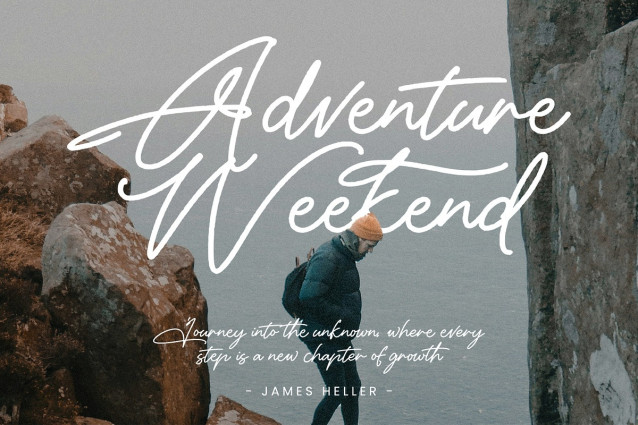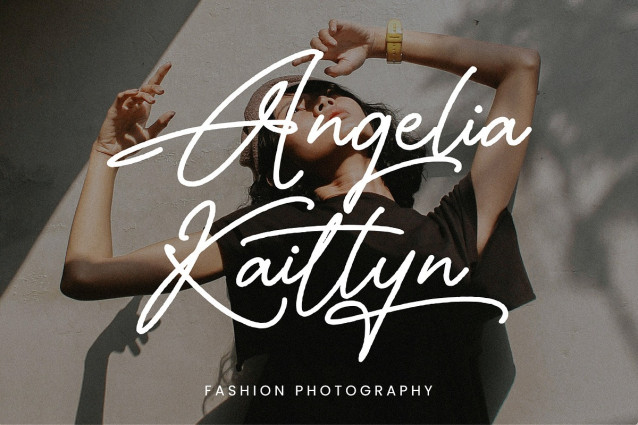
Rizaldi Script Font
Rizaldi Script Font – Monoline Signature Font is an elegant, flowing typeface that mirrors handwritten signatures, perfect for branding, invitations, and personal projects, adding a touch of sophistication.
Uppercase & Lowercase Characters: Fully designed for a complete typographic experience
Numerals & Punctuation: All the numbers and punctuation marks you need for any design task
Multilingual Support: Includes characters for multiple languages, ensuring global usability
High-Quality Design: Each font is crafted with attention to detail, ensuring a polished and professional look